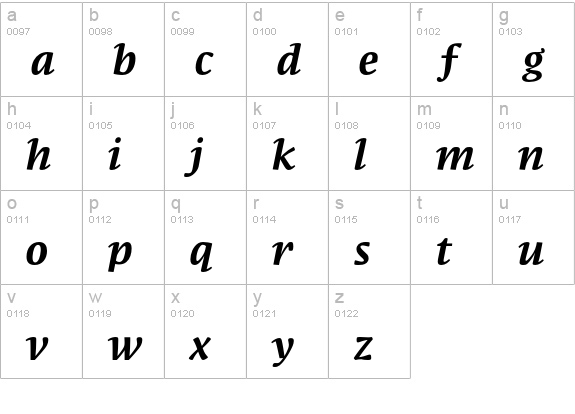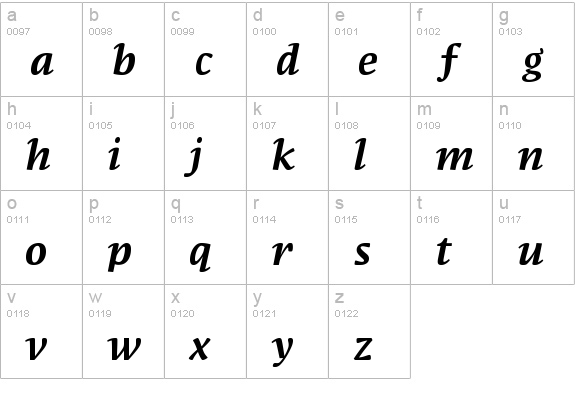
Parable-BoldItalic font is a captivating and elegant typeface that effortlessly combines boldness and style. Its sleek and sophisticated design is perfect for adding a touch of modernity to any project. The unique blend of boldness and italics creates a striking visual impact, making it ideal for attention-grabbing headlines, logos, and branding materials. This font exudes a sense of confidence and strength, lending itself perfectly to projects that demand a bold statement. Each letter is meticulously crafted, ensuring smooth curves and sharp edges that enhance readability and legibility. Parable-BoldItalic font is versatile and adaptable, making it suitable for a wide range of design applications, from print materials to digital platforms. One of the best aspects of Parable-BoldItalic font is that it is available for free. Yes, you read that right! This stunning font can be freely downloaded at FontsMarket.com. With its generous availability, designers and creatives can access and utilize this font without any limitations, allowing for endless possibilities in their projects. Whether you're a seasoned designer looking to add a fresh and contemporary touch to your work, or a beginner searching for an impactful font to make a statement, Parable-BoldItalic font is the perfect choice. Its bold and italicized style will undoubtedly leave a lasting impression on your audience, elevating your designs to new heights of creativity and professionalism. Don't miss out on the opportunity to enhance your projects with this remarkable font. Visit FontsMarket.com today and download Parable-BoldItalic font for free. Experience the power of boldness and elegance in one exceptional typeface and unlock a world of design possibilities.